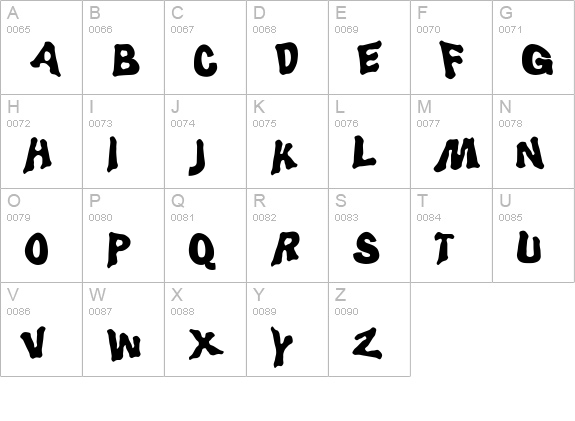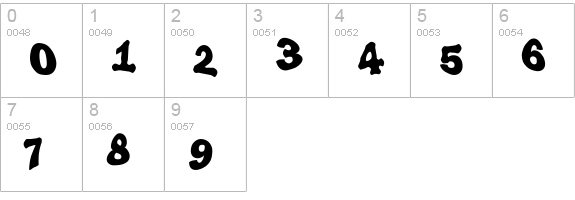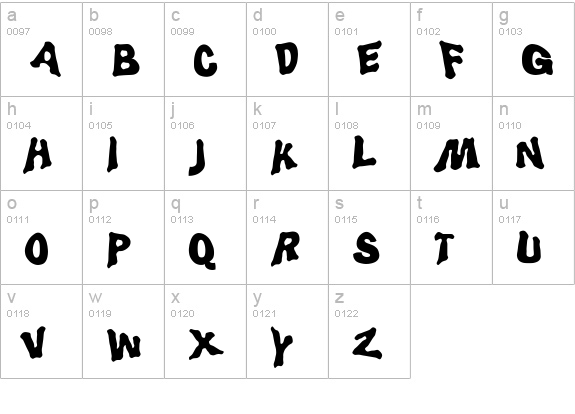
LuggerBug Font Details
LuggerBug font is a whimsical and charming typeface that brings a touch of playfulness to any design project. Its unique and quirky letterforms are perfect for adding a fun and energetic element to your designs. With its rounded edges and friendly appearance, LuggerBug font is sure to captivate and delight your audience. What sets LuggerBug font apart is not just its cheerful aesthetic, but also the fact that it is available for free download at FontsMarket.com. Yes, that's right - you can get your hands on this delightful font without spending a dime! Whether you're working on a creative project, designing invitations, crafting social media posts, or simply looking to infuse some personality into your work, LuggerBug font is the perfect choice. So why wait? Head over to FontsMarket.com today and download LuggerBug font for free. Let your creativity soar with this charming and versatile typeface that is sure to make your designs stand out from the crowd.